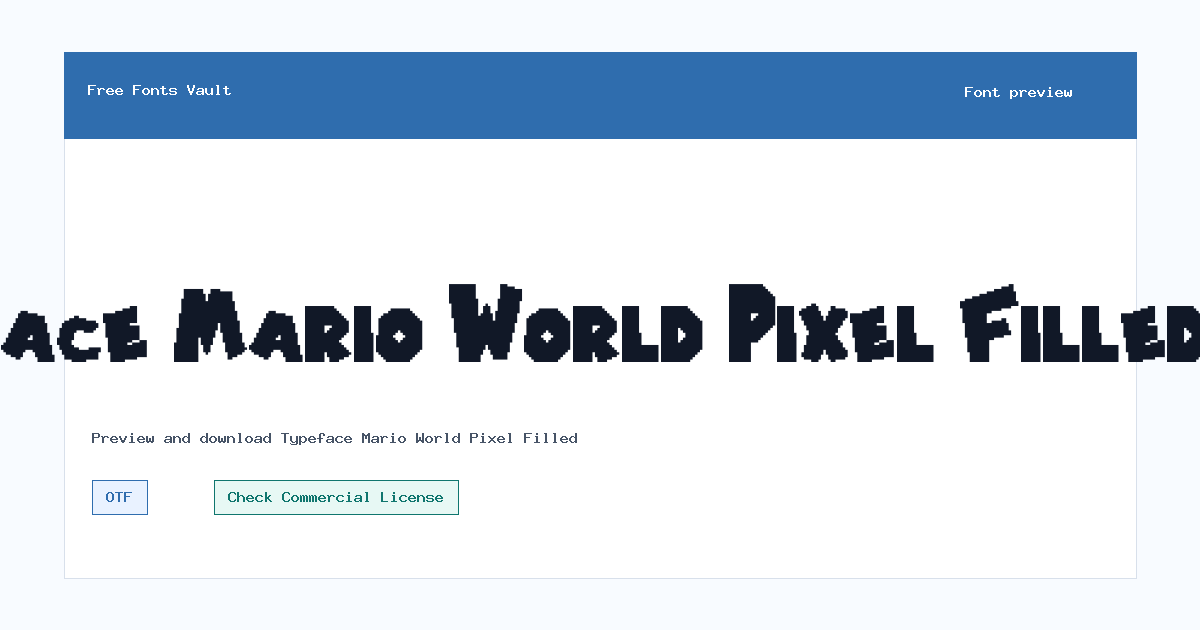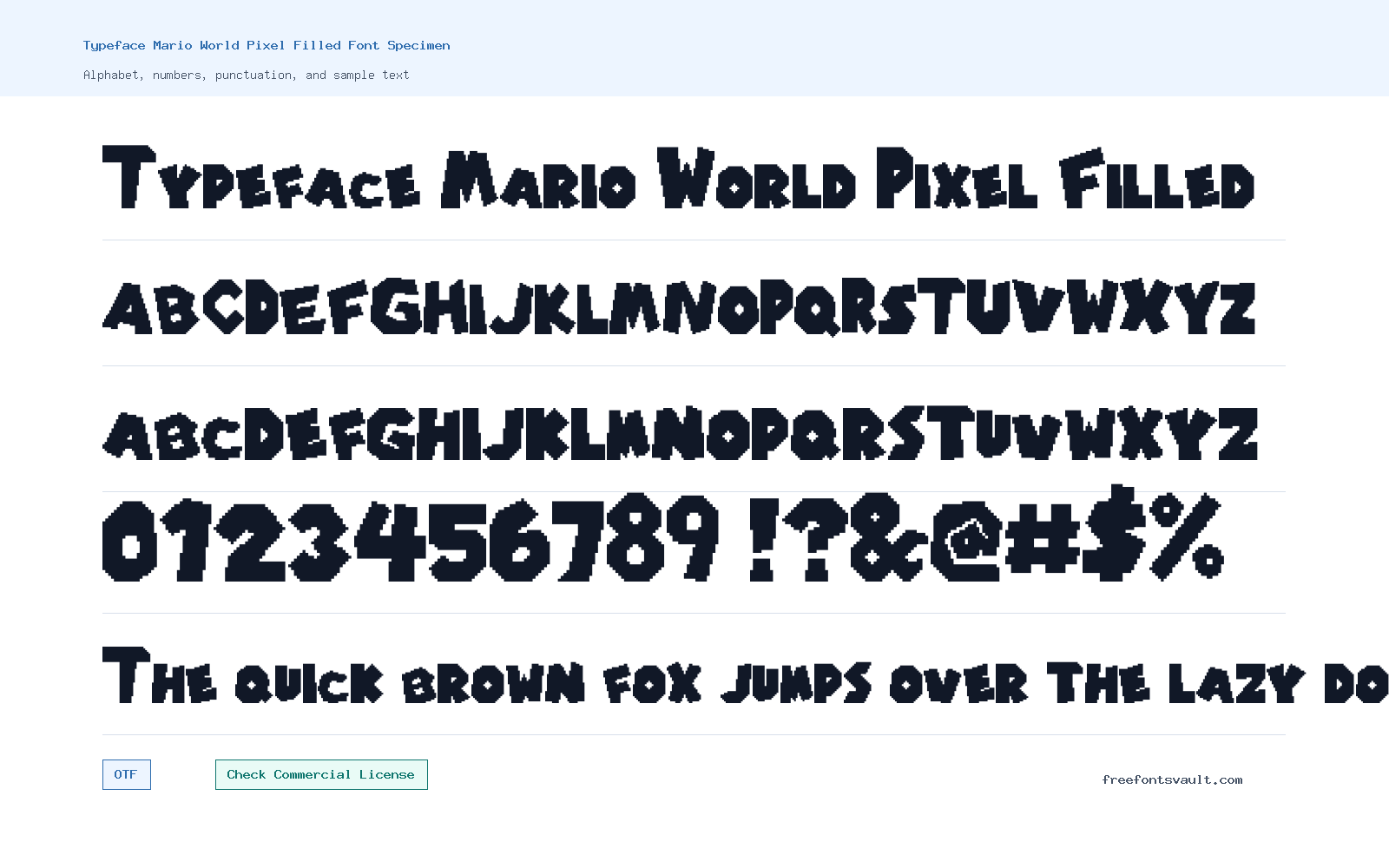
Typeface Mario World Pixel Filled
Typeface Mario World Pixel Filled font.
Typeface Mario World Pixel Filled is a regular OTF display font with a blocky pixel look. It is best suited to short, bold text where the squared letter shapes can stay clear and easy to read.
About Typeface Mario World Pixel Filled
Typeface Mario World Pixel Filled uses a filled pixel style, so it works better as a display face than as a long-reading text font. The name and file format point to a simple regular cut, making it easy to test in previews for headings, labels, game-inspired graphics, thumbnails, and other short text settings.
Because pixel fonts depend heavily on size, try your exact words in the preview before downloading. Small sizes may make counters, spacing, or similar letters harder to read, while larger sizes usually show the grid-like construction more clearly. Keep the design for compact phrases, and pair it with a clean sans serif when you need body text or instructions.
This is the kind of font where context matters more than a long feature list. It can look sharp in a gaming thumbnail, pixel-art poster, stream overlay, sticker, or fan-made title card, but it needs space around each word. Keep the color contrast strong and avoid long sentences so the pixel construction stays intentional instead of becoming visual noise.
For a cleaner result, use it on one main phrase and let another simple font handle menus, captions, or instructions. That contrast keeps the playful look without making the whole design hard to scan.
- Filled pixel-style letterforms for short display text
- Game-style titles, thumbnails, banners, and short labels
- Retro-inspired posters, badges, stickers, and social graphics
Use this font at larger sizes and keep text short. Check spacing in the preview, especially for all-caps words, numbers, and punctuation. For readable layouts, use a plain companion font for paragraphs and keep Typeface Mario World Pixel Filled for the main display words.
What is this font best used for?
It is best for short display text such as game-style headings, thumbnails, labels, posters, and retro-themed graphics.
Can I use it for body text?
It is not the best choice for long paragraphs. Pixel-style letterforms are usually clearer in short words and larger sizes.